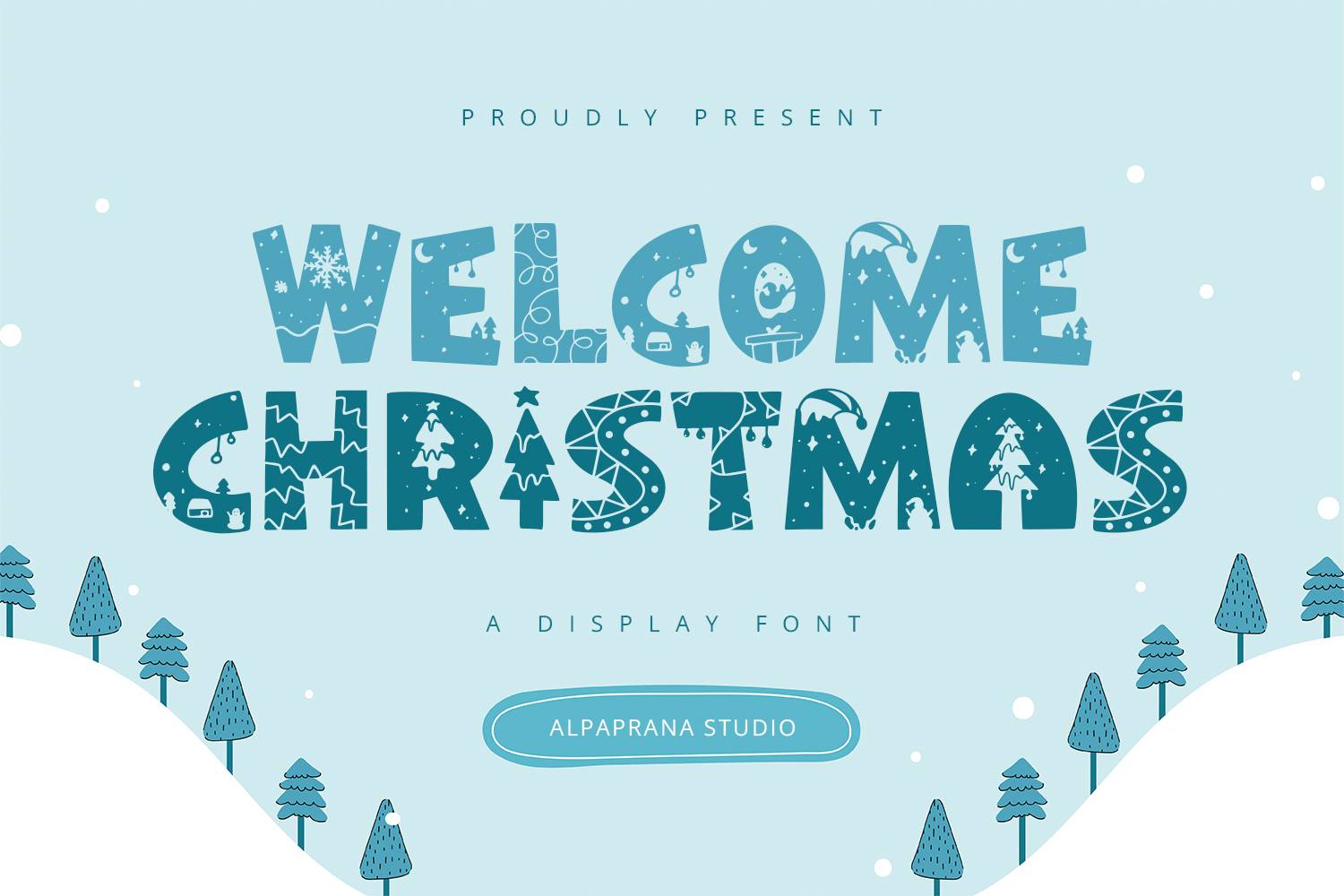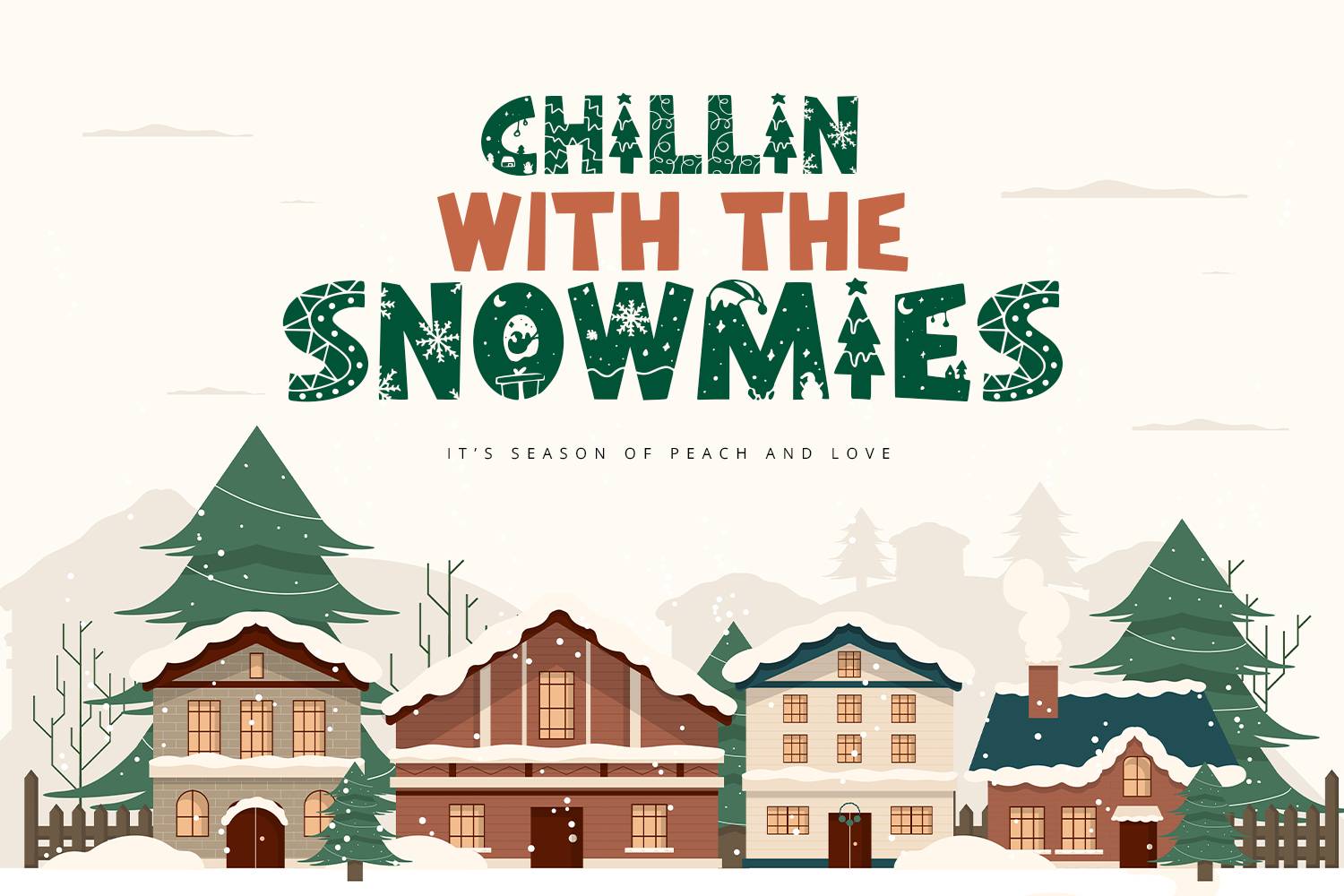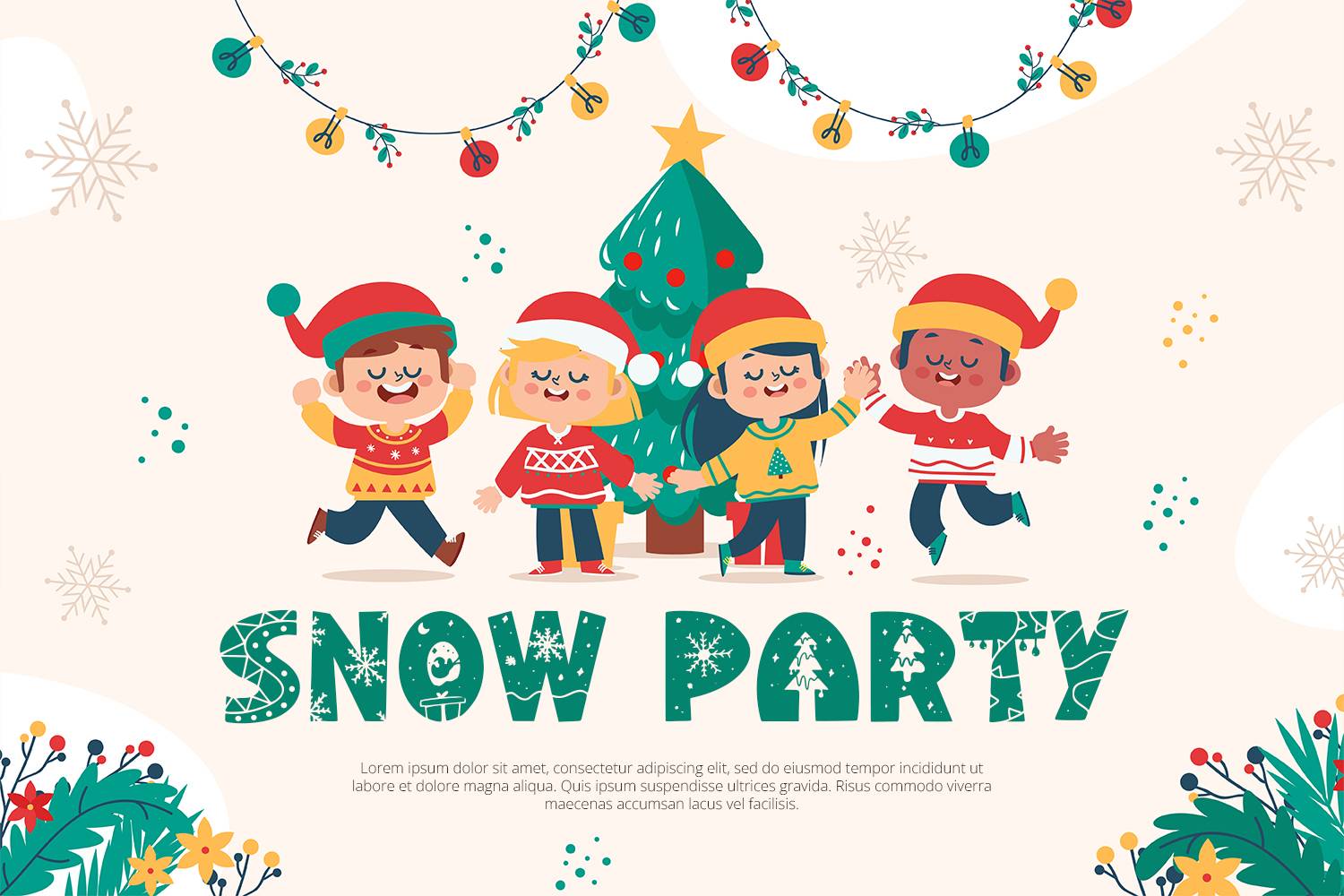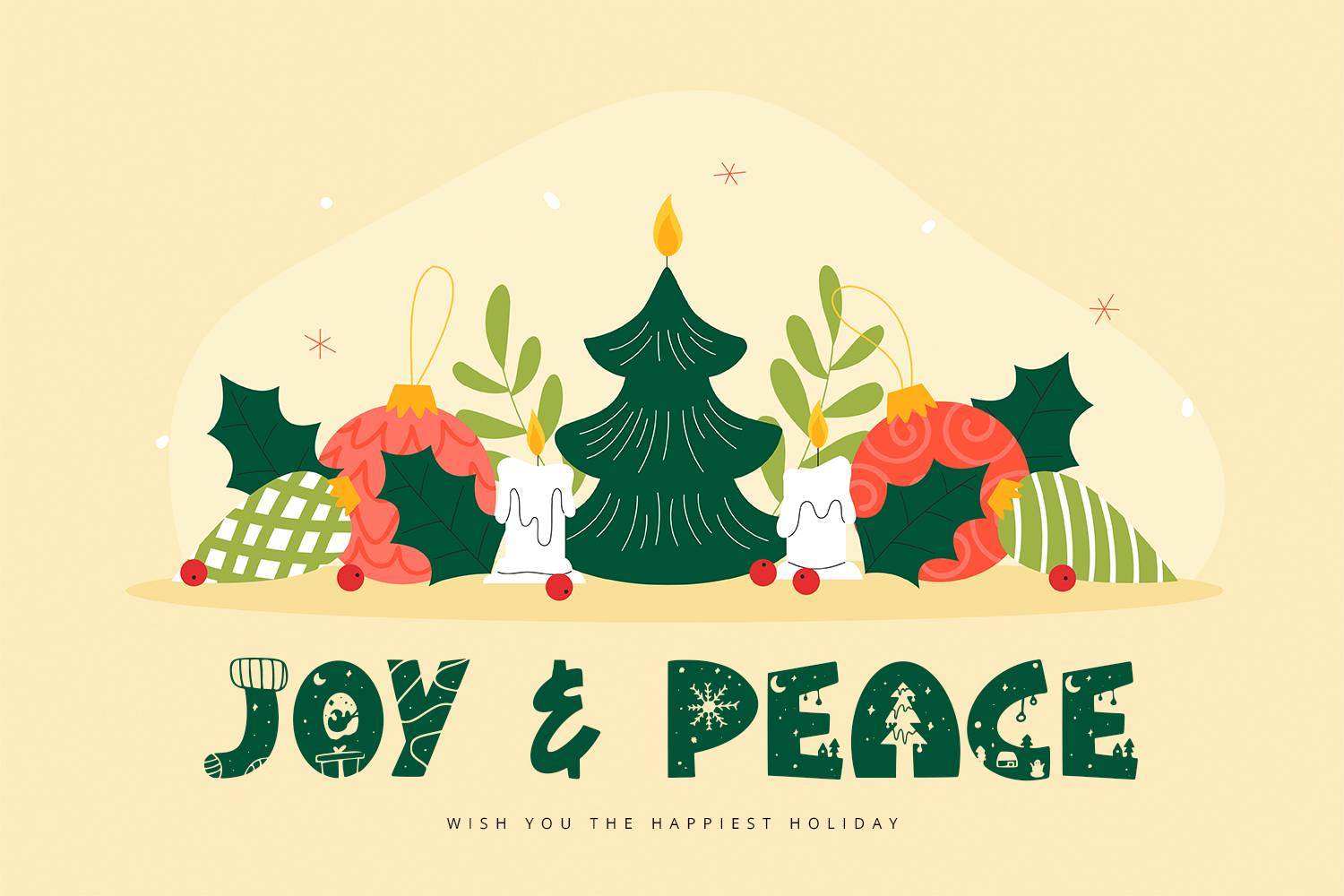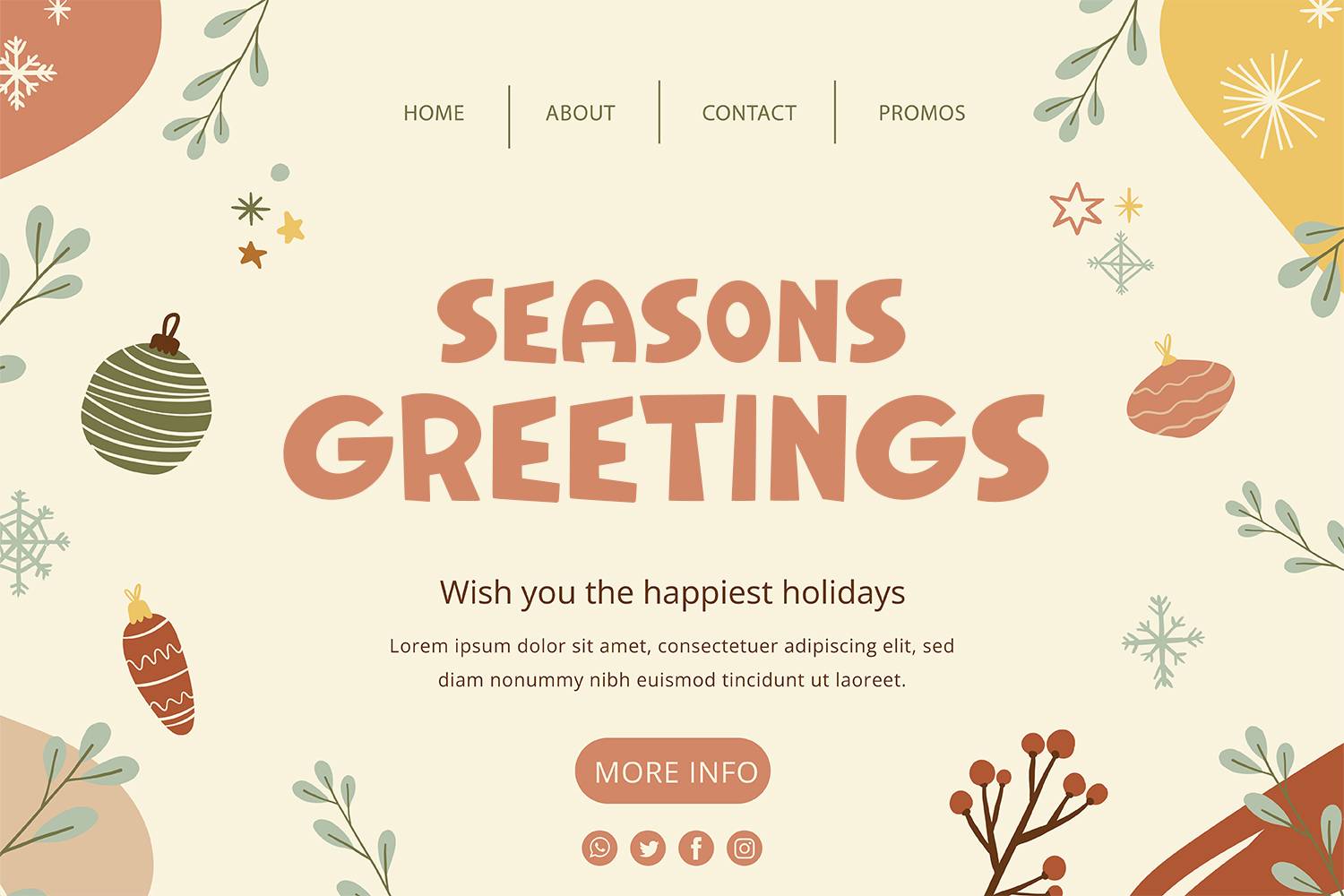
Welcome Christmas Font is a playful and bold sans serif typeface with a festive twist, featuring lively Christmas-themed decorations within some characters. Its chunky, rounded letterforms create an inviting and joyful feel, perfect for holiday-themed designs, greeting cards, or seasonal branding. This font works best in headlines and display settings where a cheerful, fun, and spirited mood is desired.
Welcome Christmas Font
About Welcome Christmas Font